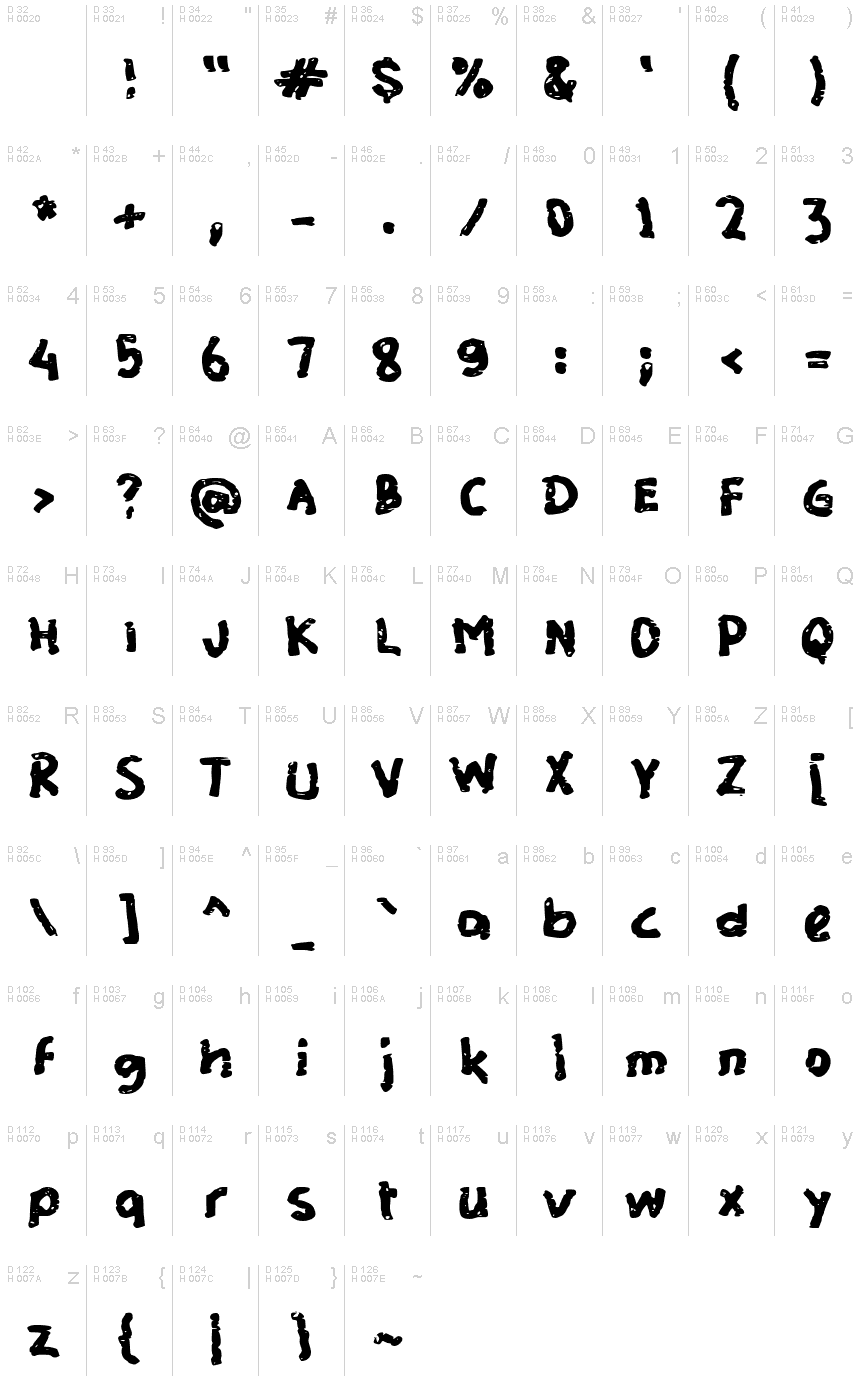
Eceng
Eceng, created by wep, is a stunning display font that embodies the rugged and unconventional style of eroded typography. The semi-bold weight of this typeface adds depth and character to any project it's used in. Whether it's for an edgy rock band poster or a vintage clothing brand, Eceng delivers a unique and captivating look. Its eroded style gives off a distressed vibe that can work wonders for anything from grunge-themed album covers to weathered travel brochures. Make your designs stand out with Eceng – the perfect font for those who dare to be different!